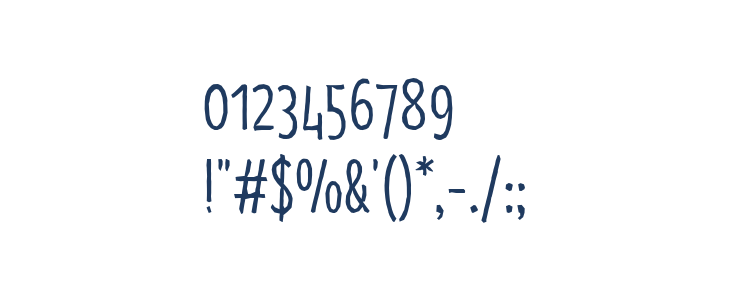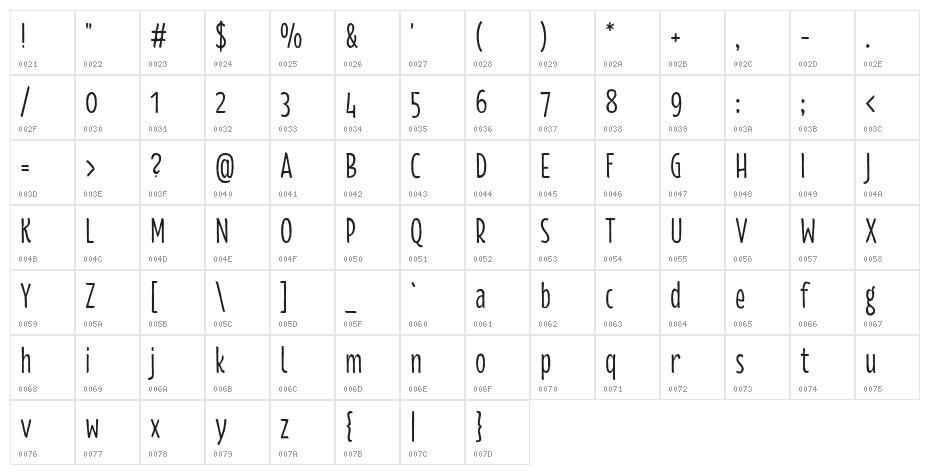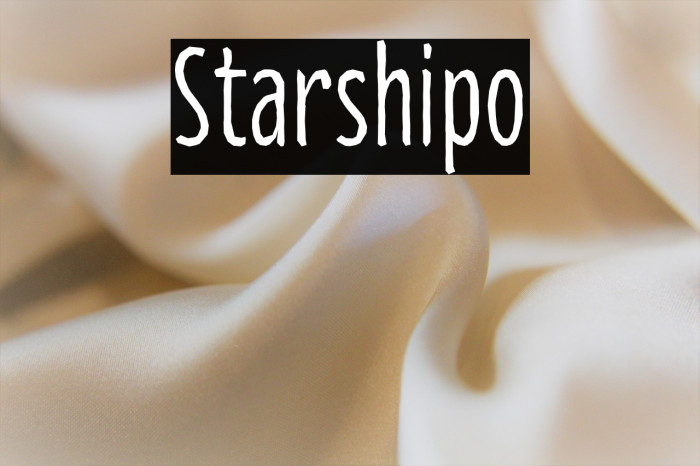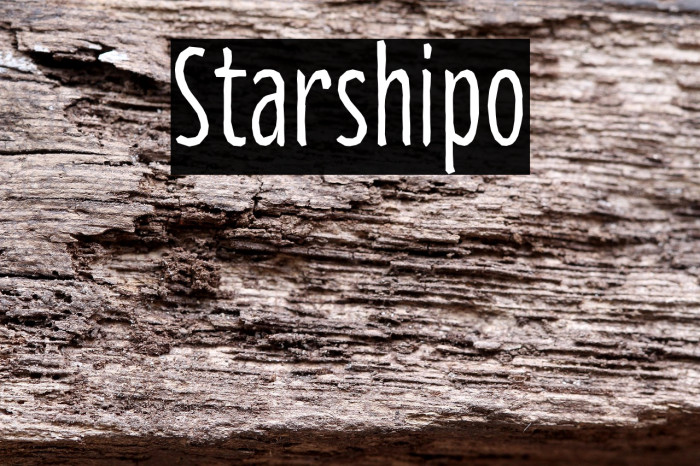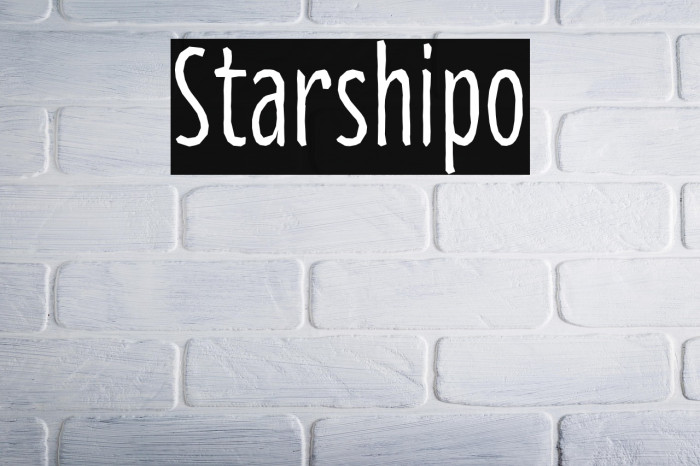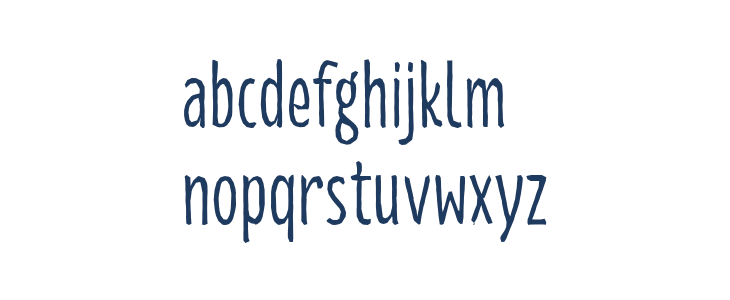
Starshipo Font
Starshipo Description
This font features a hand-drawn, organic style with slightly irregular strokes that give it a casual and approachable feel. The uppercase letters are tall and narrow, while the lowercase letters maintain a consistent height, contributing to a cohesive look. The numbers and special characters follow the same design principles, ensuring uniformity across all glyphs. The overall appearance is playful yet legible, making it suitable for a variety of creative projects. The strokes have a medium contrast, adding to the font's dynamic and lively character. Its unique style makes it stand out, perfect for projects that require a personal touch.
| Proposed Projects | Ideal for greeting cards, children's books, casual branding, and creative posters. |